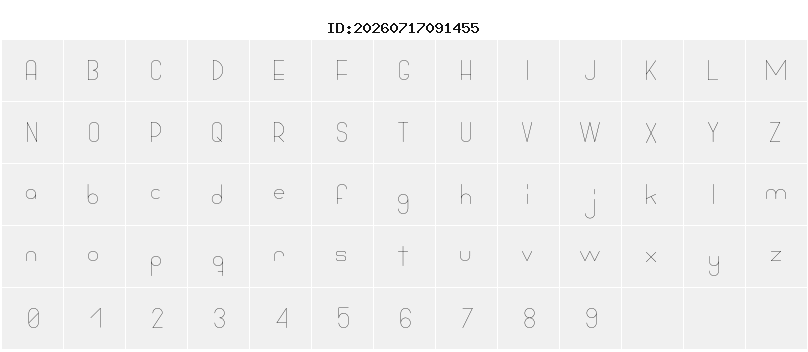
• Font Name: Bowhouse Light
• Full Font Name: Bowhouse Light
• Designer: Adrian Candela
• Manufacturer: Adrian Candela
• Description: Bowhouse Light is a font by Adrian Candela, designed by Adrian Candela in 2013.
About Bowhouse Light.otf
Bowhouse Light.otf is a modern, elegant sans-serif font designed for ultimate readability and visual harmony. Perfect for branding, headlines, web design, and print materials.